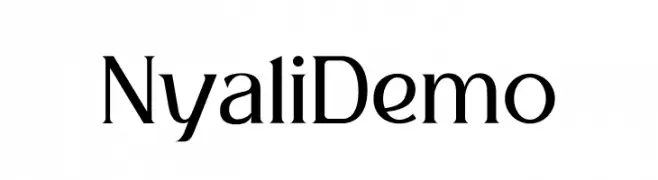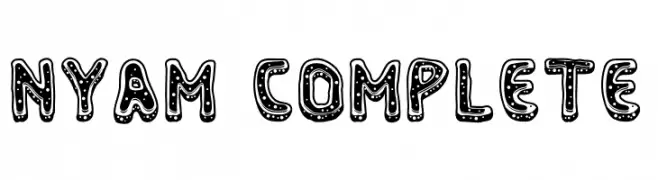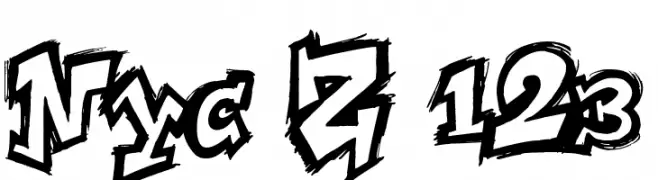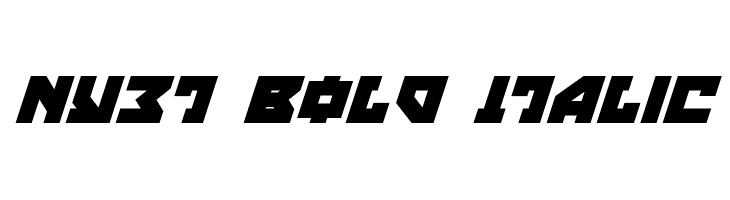
Elegant serif font with flowing strokes.
A playful, bold font with dotted patterns inside each character.
A bold, slanted font with geometric shapes and strong vertical emphasis.
A modern sans-serif font with geometric shapes and uniform strokes.
A bold, eclectic display font with urban and artistic textures.
A bold, graffiti-style font with dynamic, hand-drawn characters.
An elegant, flowing script font with ornate uppercase and connected lowercase letters.
A bold, geometric font with thick strokes and modern design.
A bold, italicized font with a modern and dynamic style.
A geometric and futuristic font with lines and dots, ideal for modern and sci-fi themes.